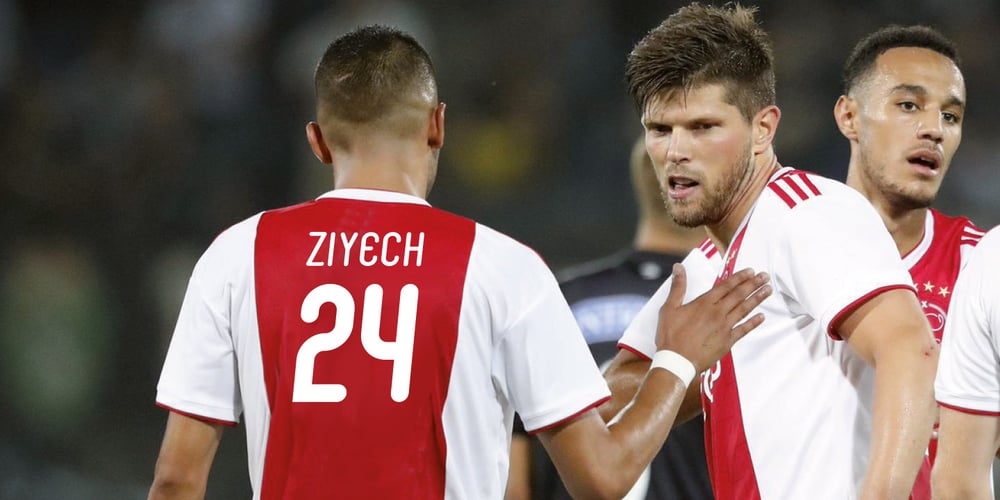
Maisonneuve
Maisonneuve Font Family was designed by Hermen Grasman and published by Beware of the moose. Maisonneuve contains 1 styles and family package options. Maisonneuve is named after the fracture I had in 2019. During the period of revalidation this font was born passed on circles and rectangles. A modern – almost modular – font with old school figures and lots of symbols and good readability and legibility.